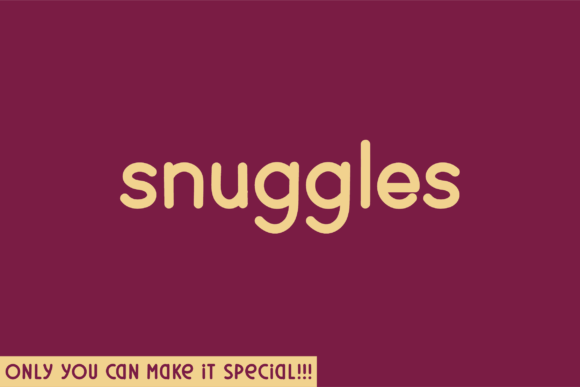
Get ready to embark on a typographic journey with Snuggles Font, the ultimate sans serif font family designed to evoke a sense of warmth, comfort, and familiarity. Created by the talented Hanna Bie, Snuggles is not just a font; it's an experience that will transform your creative projects into heartfelt expressions. Whether you're a designer, a blogger, or simply someone who loves to add a touch of coziness to their digital creations, Snuggles is the perfect font for you.
Immerse yourself in the welcoming embrace of Snuggles' natural curves and smooth lines. This font is a sanctuary for your words, providing them with a comforting home where they can rest and be appreciated. With Snuggles, your designs will exude a sense of genuine connection, inviting your audience to snuggle up and delve into the depths of your message.
Unleash your creativity with Snuggles' remarkable versatility. From heartwarming quotes that resonate with your soul to heartfelt notes that convey your deepest emotions, Snuggles effortlessly adapts to your every need. Design t-shirts that speak volumes, create product designs that radiate charm, and craft logos that exude a sense of belonging. Snuggles is your trusted companion, ready to accompany you on any creative adventure you embark upon.
With Snuggles, lost pets are never forgotten. Let the bold and friendly characters of this font serve as a beacon of hope, guiding them back home. Design posters that capture the essence of your beloved furry friend, create flyers that spread the word about their disappearance, and share social media updates that ignite a sense of community. Snuggles is the font that unites, the font that brings lost pets and their families together.
Embrace the magic of Snuggles Font today and transform your creative projects into heartwarming expressions of love, comfort, and connection. Let your designs radiate with genuine warmth and create a lasting impact on your audience. Snuggles is more than just a font; it's an experience that will leave an imprint on hearts and minds. Download Snuggles now and let your creativity flourish!